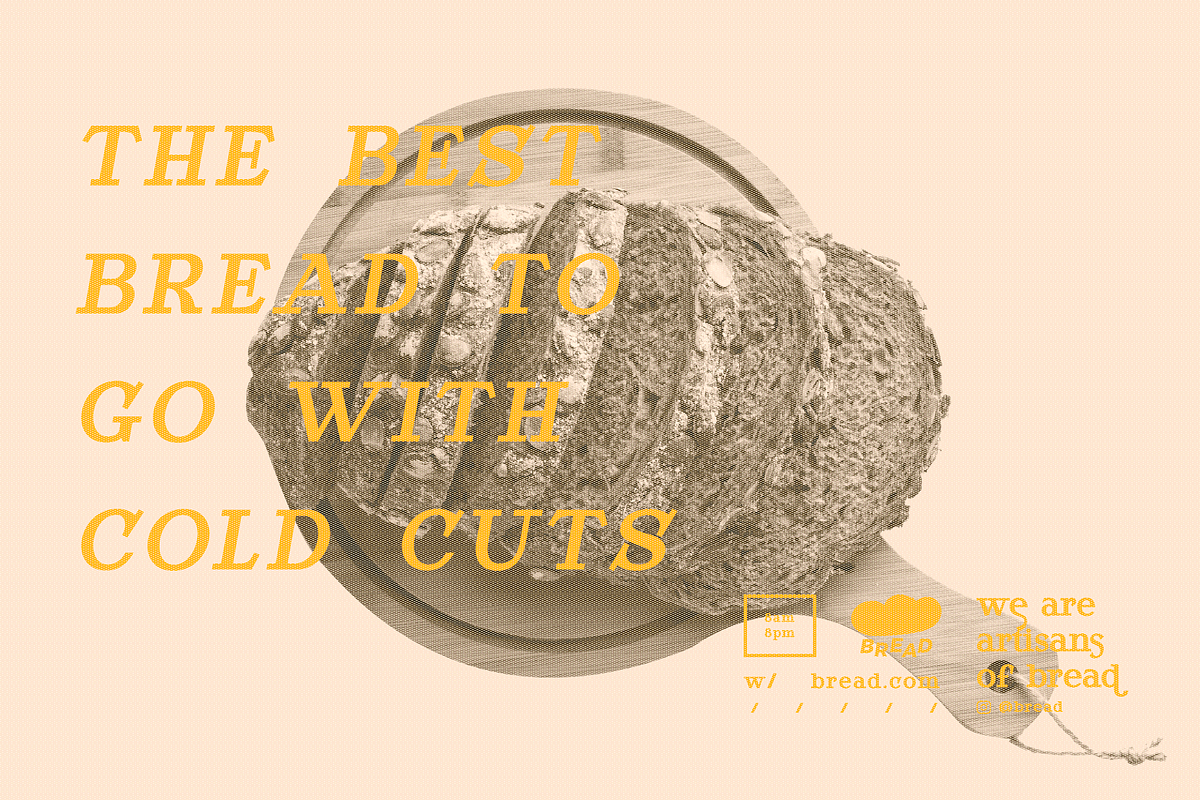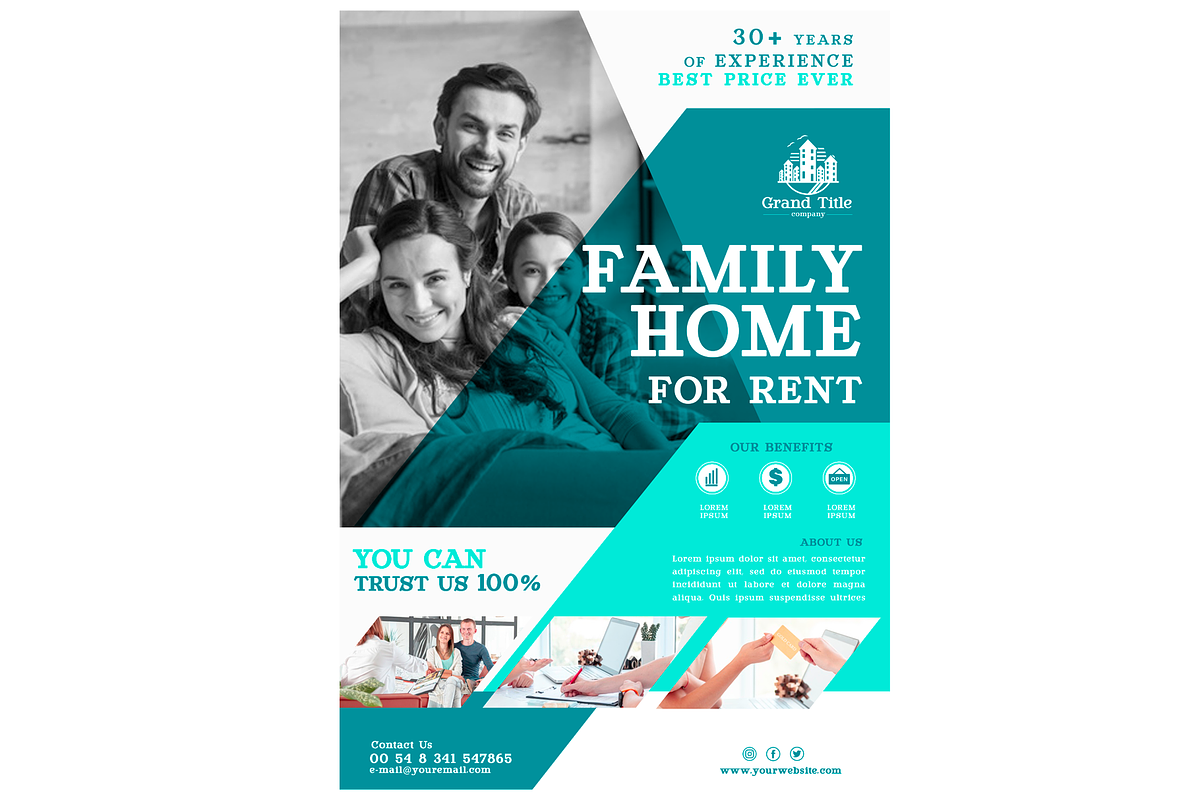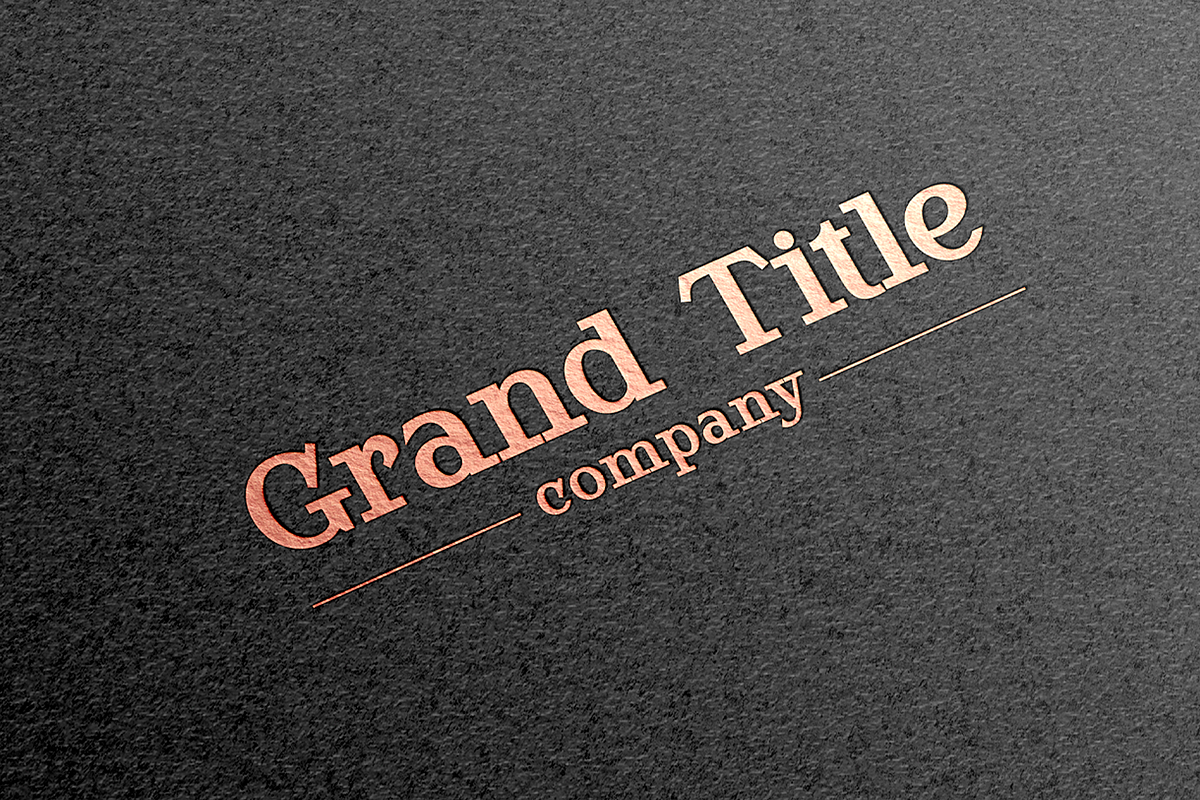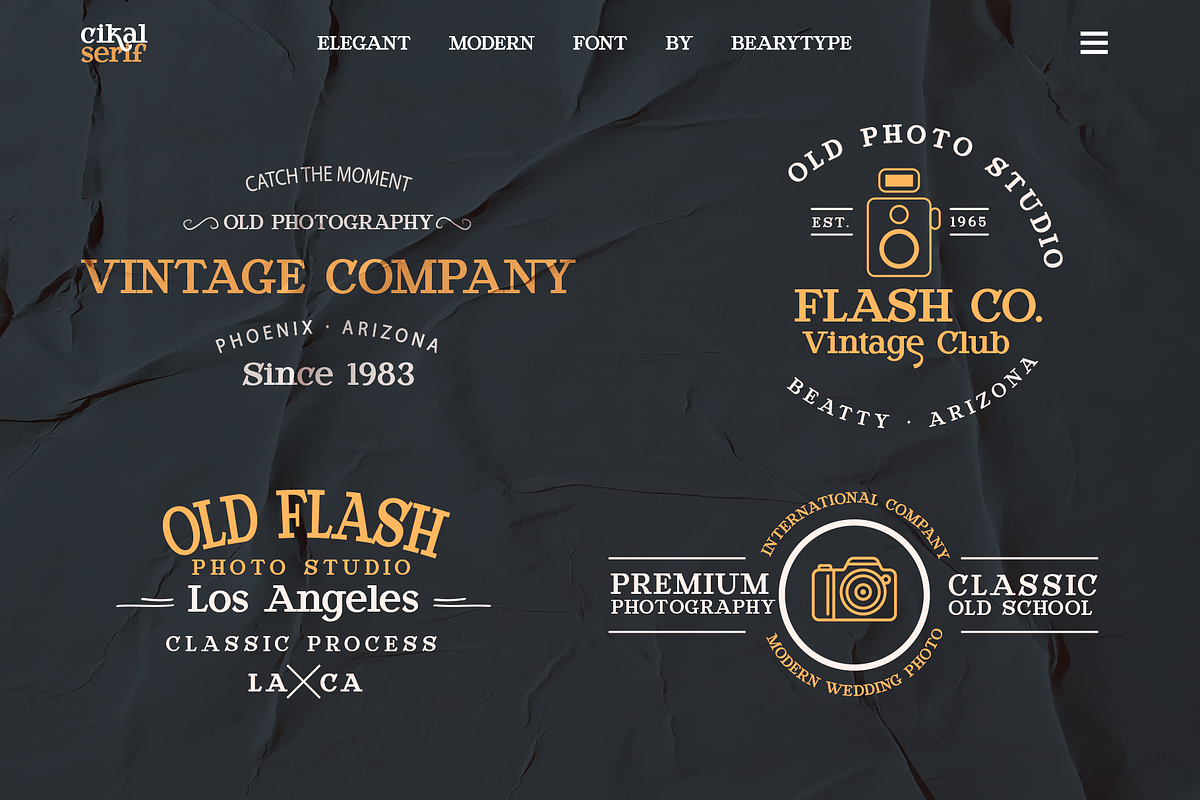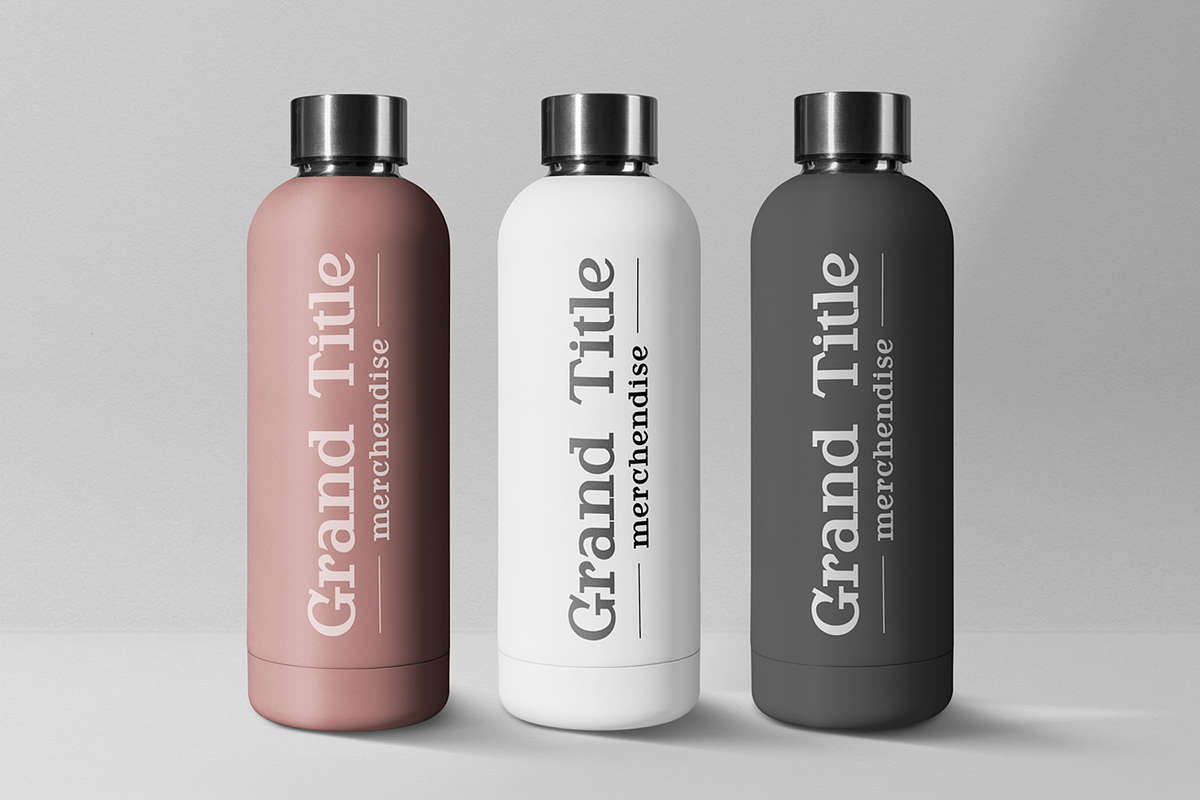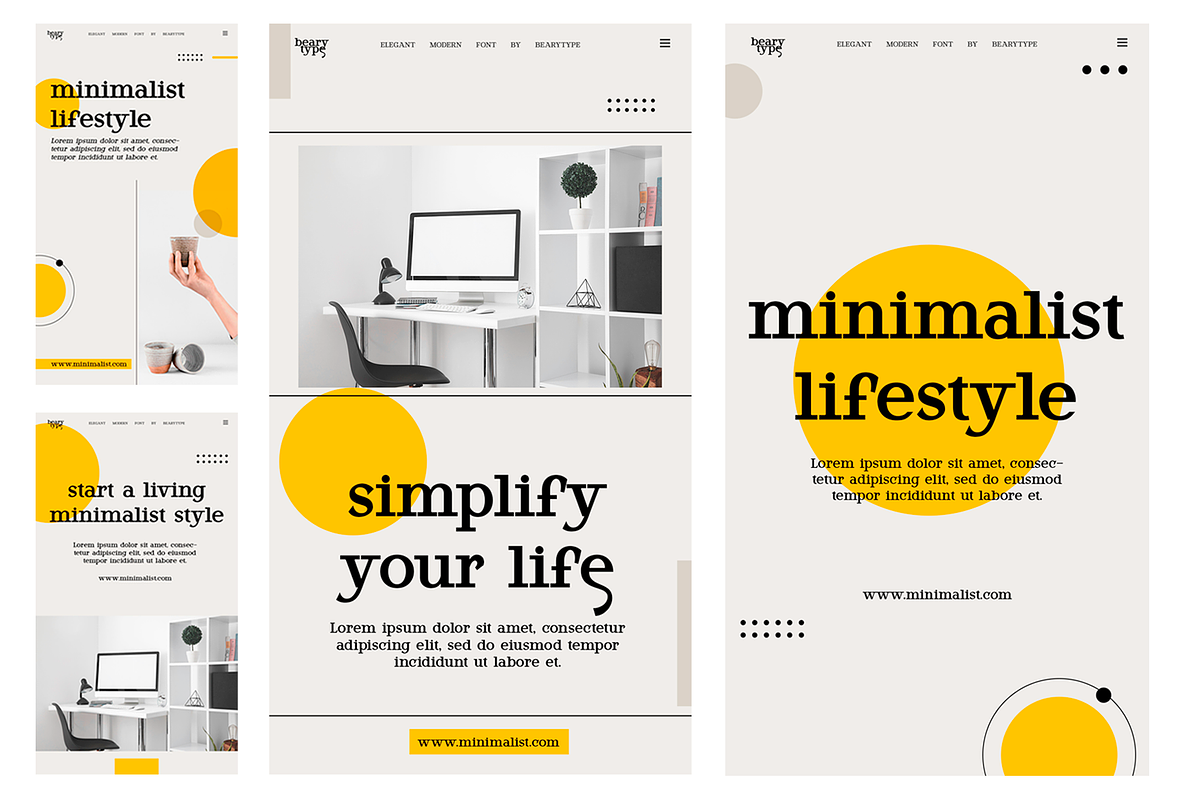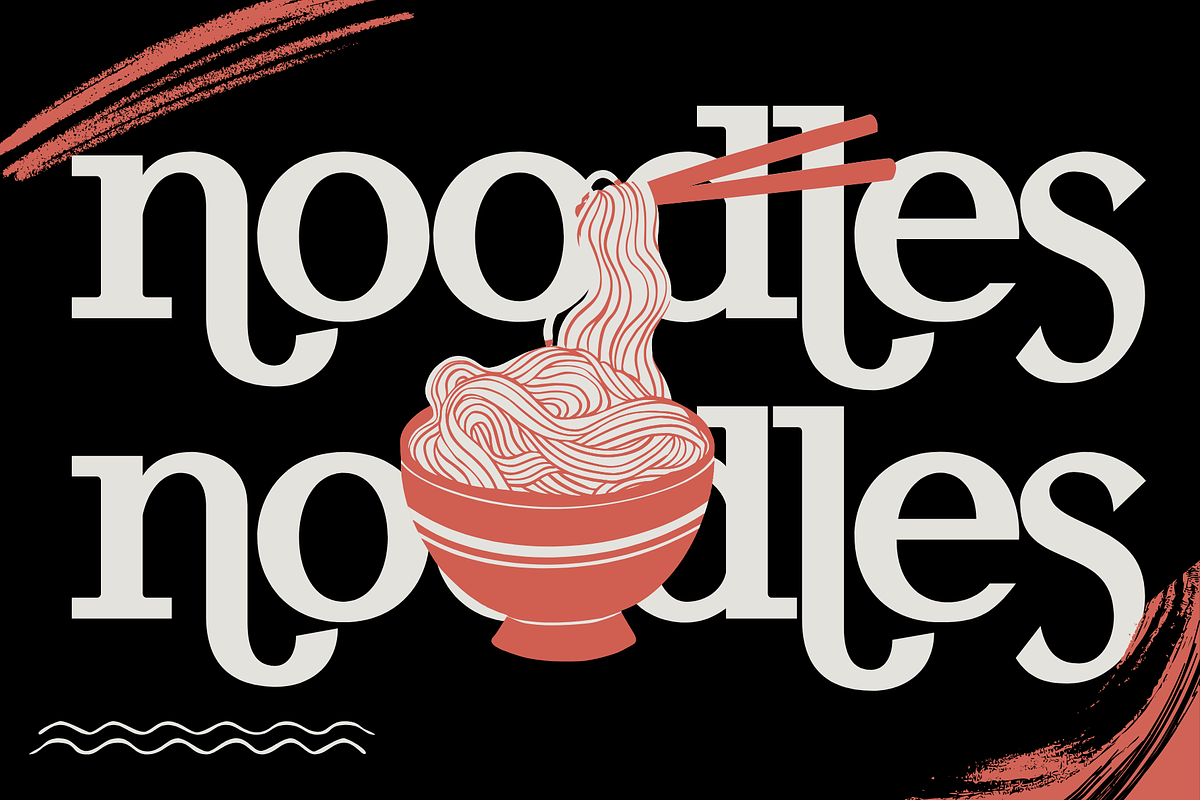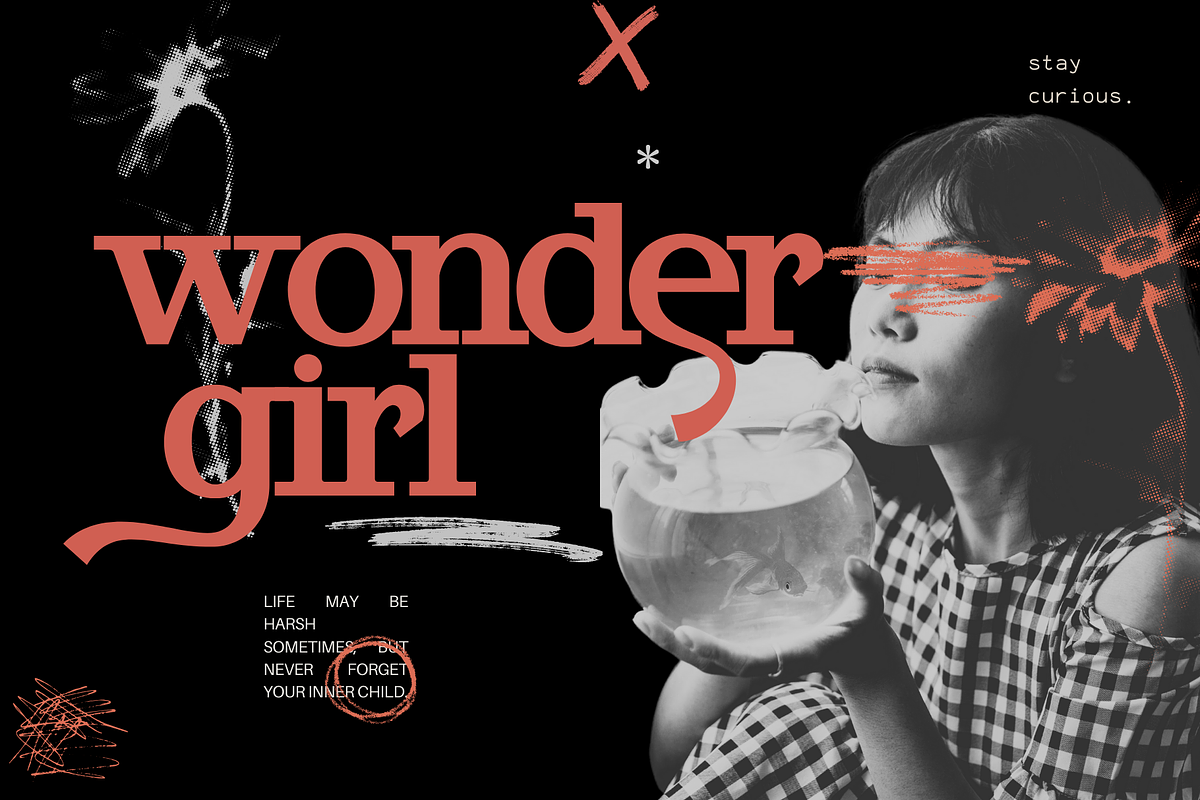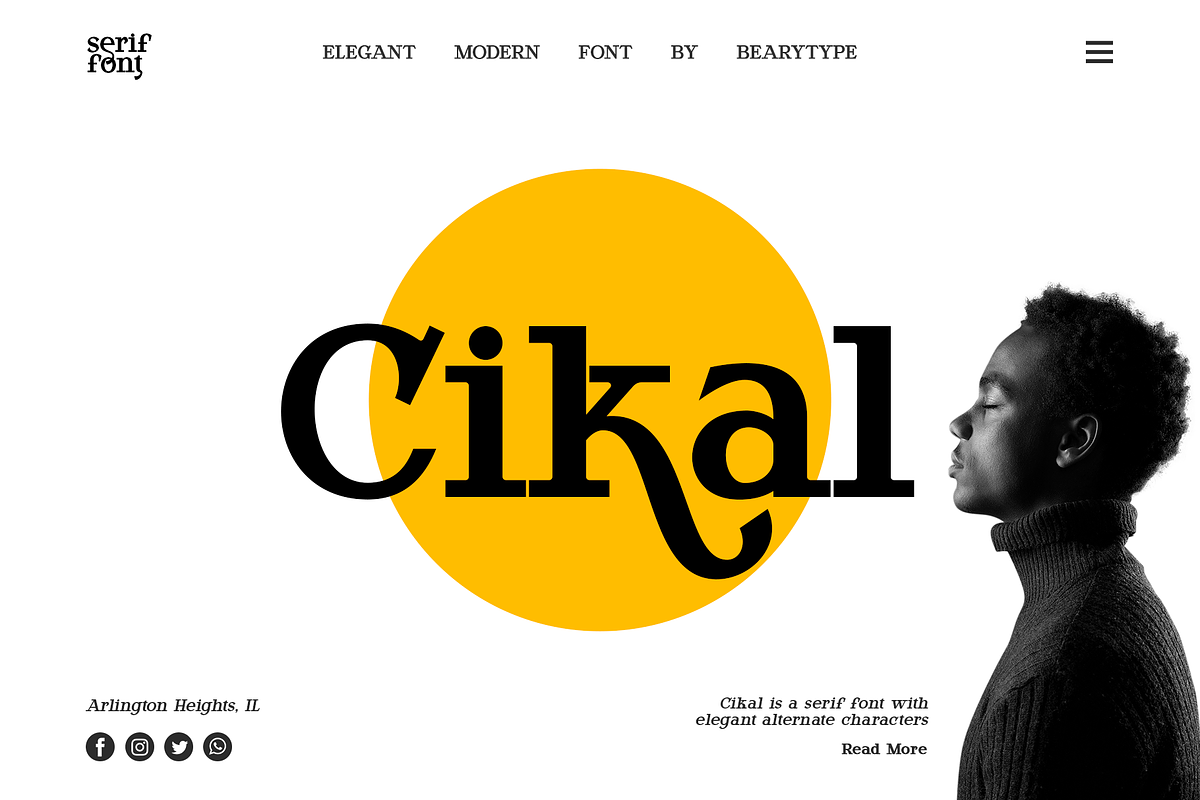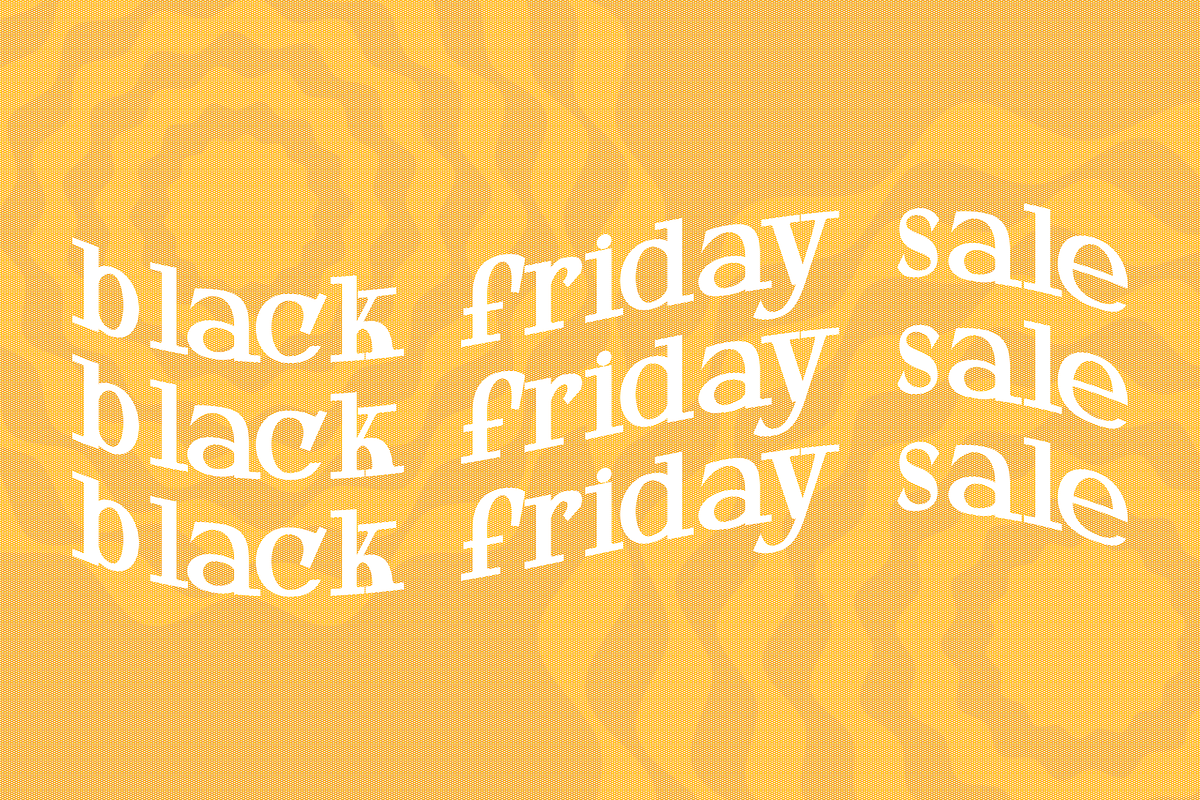
Cikal | Serif Font
Cikal is an elegant serif font with captivating alternate characters. With a total of 245 glyphs, this font offers a wide range of design possibilities. Its timeless elegance makes it a perfect choice for various design needs. Don't wait, get it now!